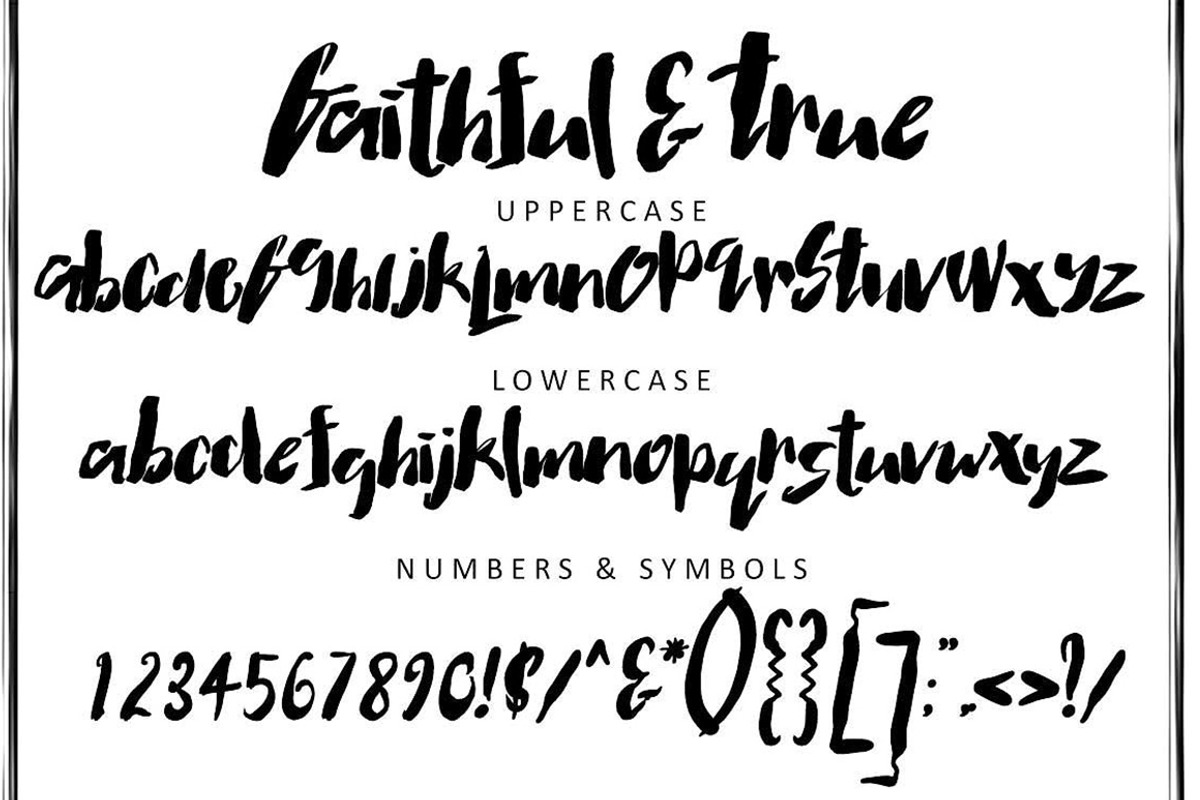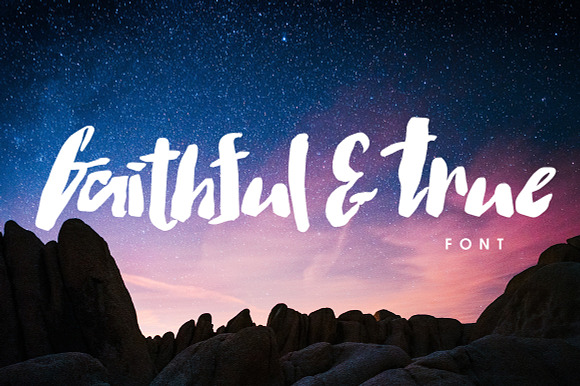
Faithful & True Font
This is Faithful & True. A bold rough hand painted trendy font. This font is part of the Big Bunch of Fonts Volume 2 here
Why Faithful & True Font is worth a look
Faithful & True Font by Creativeqube Design fits naturally into Branding, posters, packaging, typography.